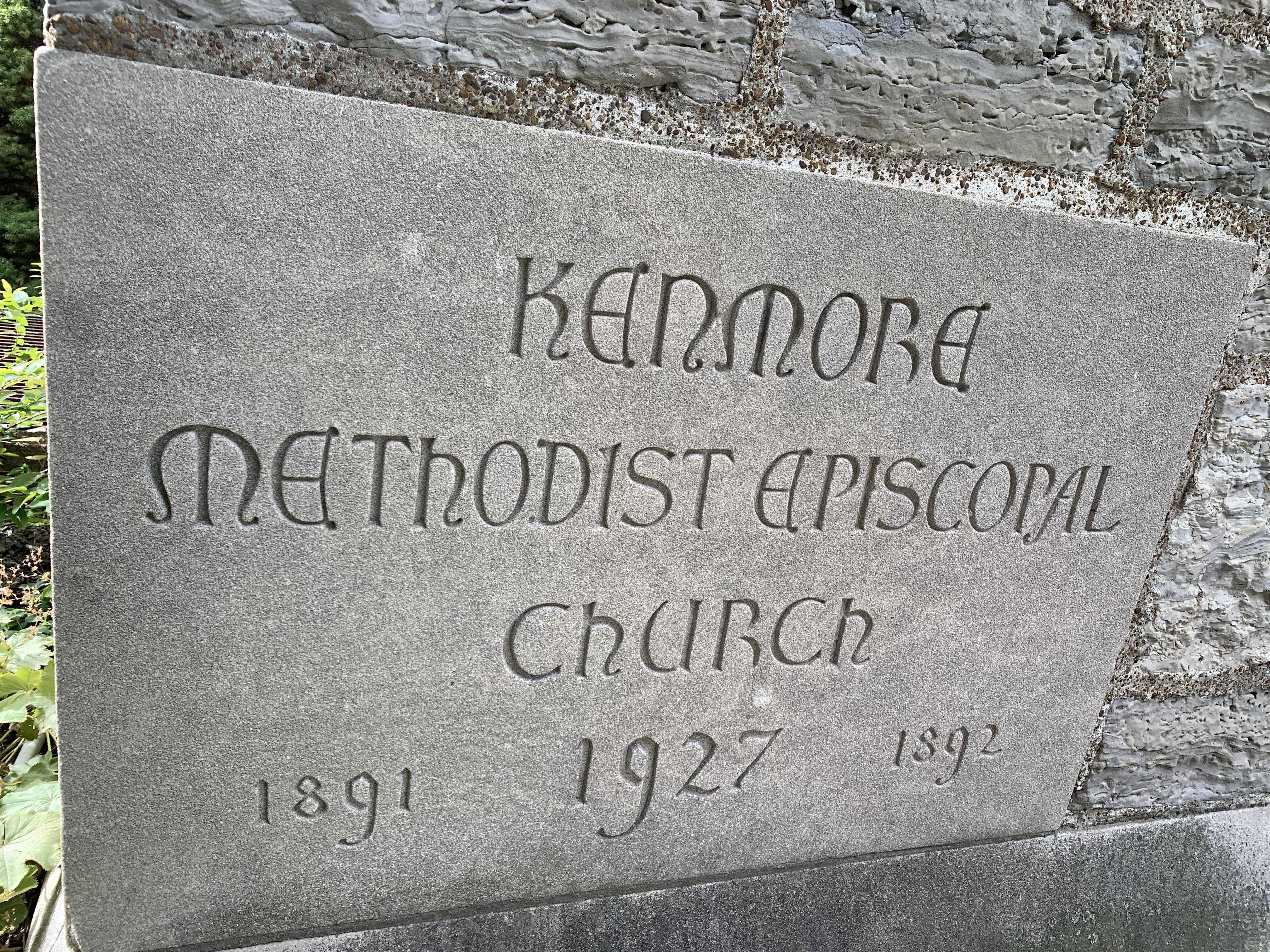
1920’s font ID
Hello, this is hand-drawn lombardic style lettering. In 1927 there were only about 5 or 6 reproducible lettering styles available for engraving, everything else would have been drawn by hand.